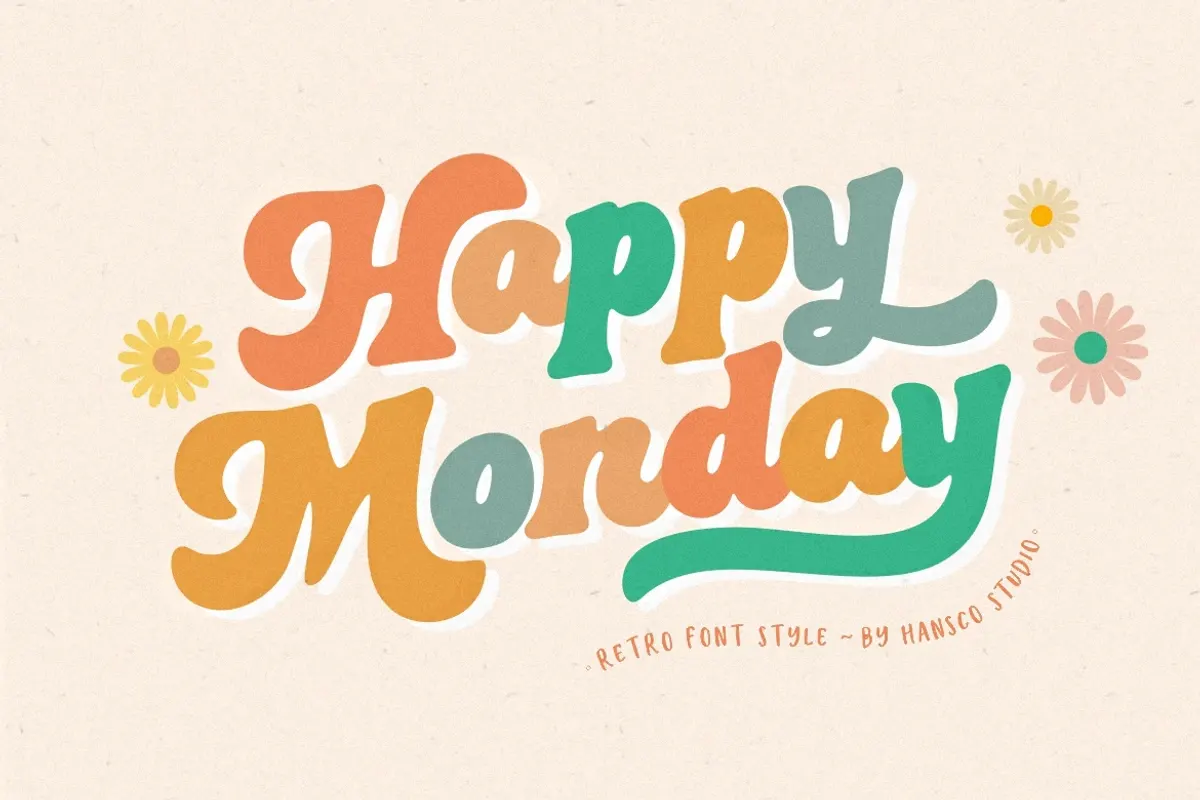
Happy Monday - Retro Groovy Fonts Free Download is a fun and funky typeface inspired by the vibrant, psychedelic typography of the 1960s and 1970s. With its bold, rounded letterforms and playful design, this font is perfect for adding a nostalgic and energetic vibe to your creative projects, such as posters, logos, branding, t-shirt designs, and more.
Its groovy, retro aesthetic makes it ideal for music-related designs, vintage event posters, or any project that needs a burst of personality and color. Happy Monday delivers a joyful and whimsical feel, making it a go-to choice for bringing a cheerful and nostalgic touch to your typography.